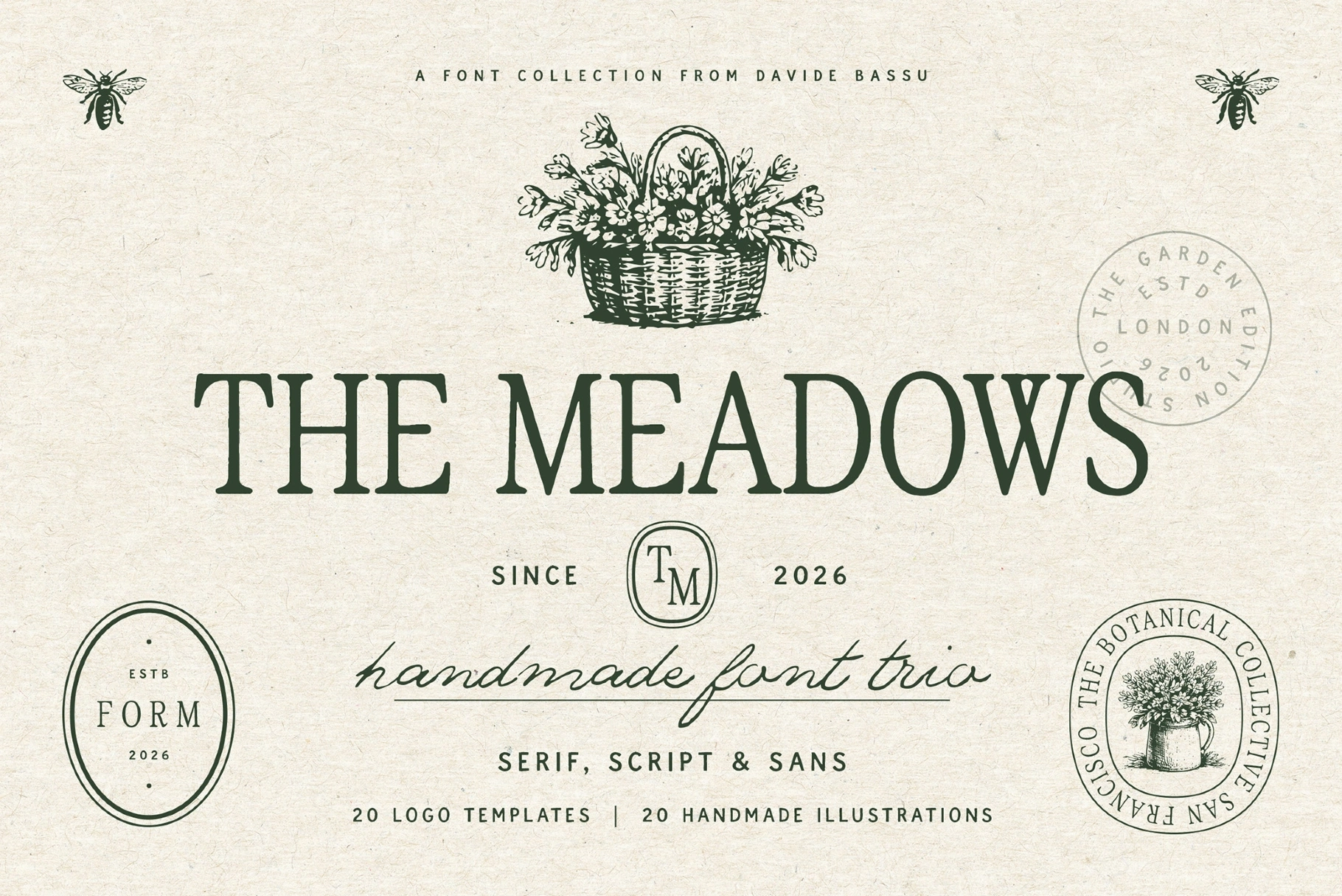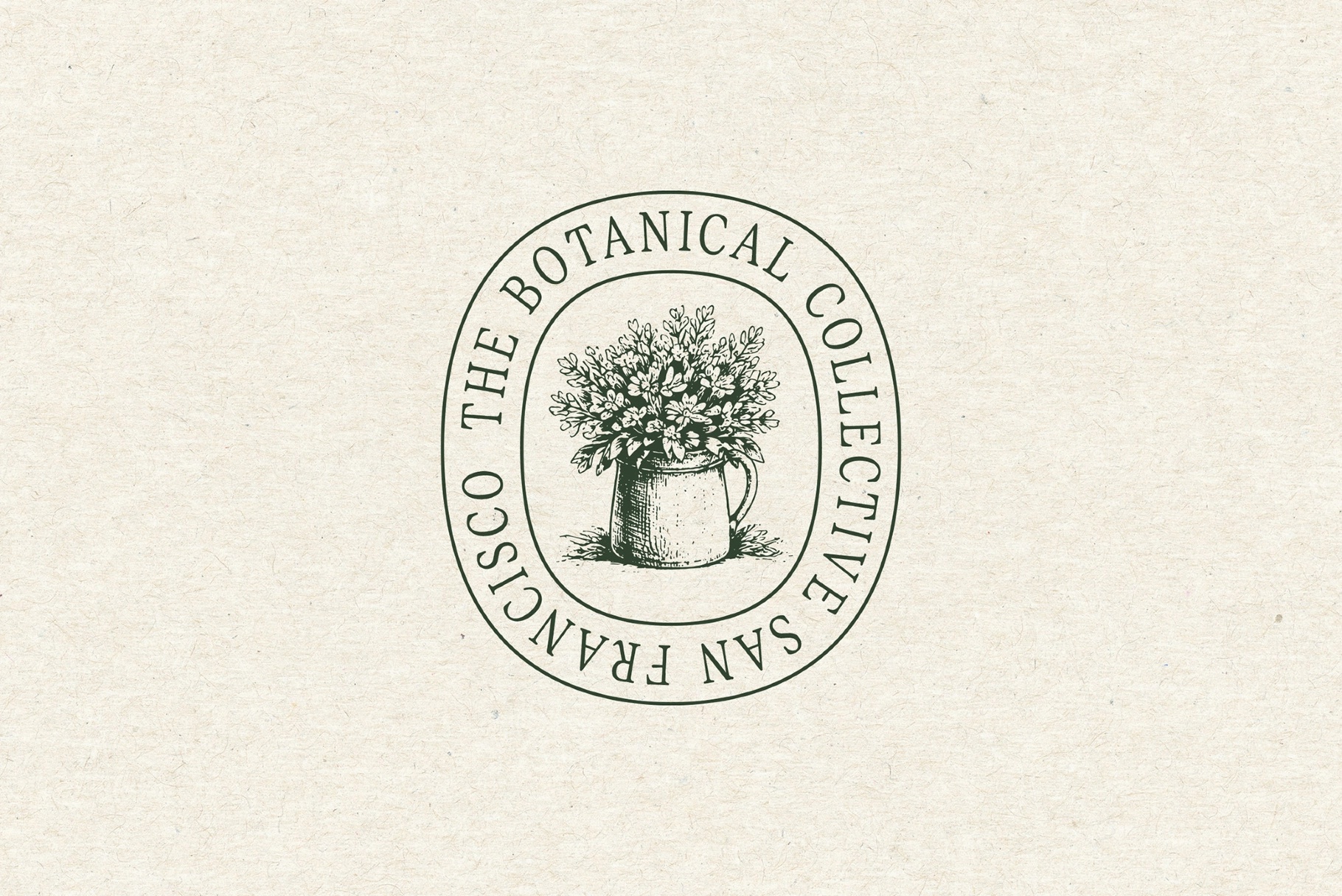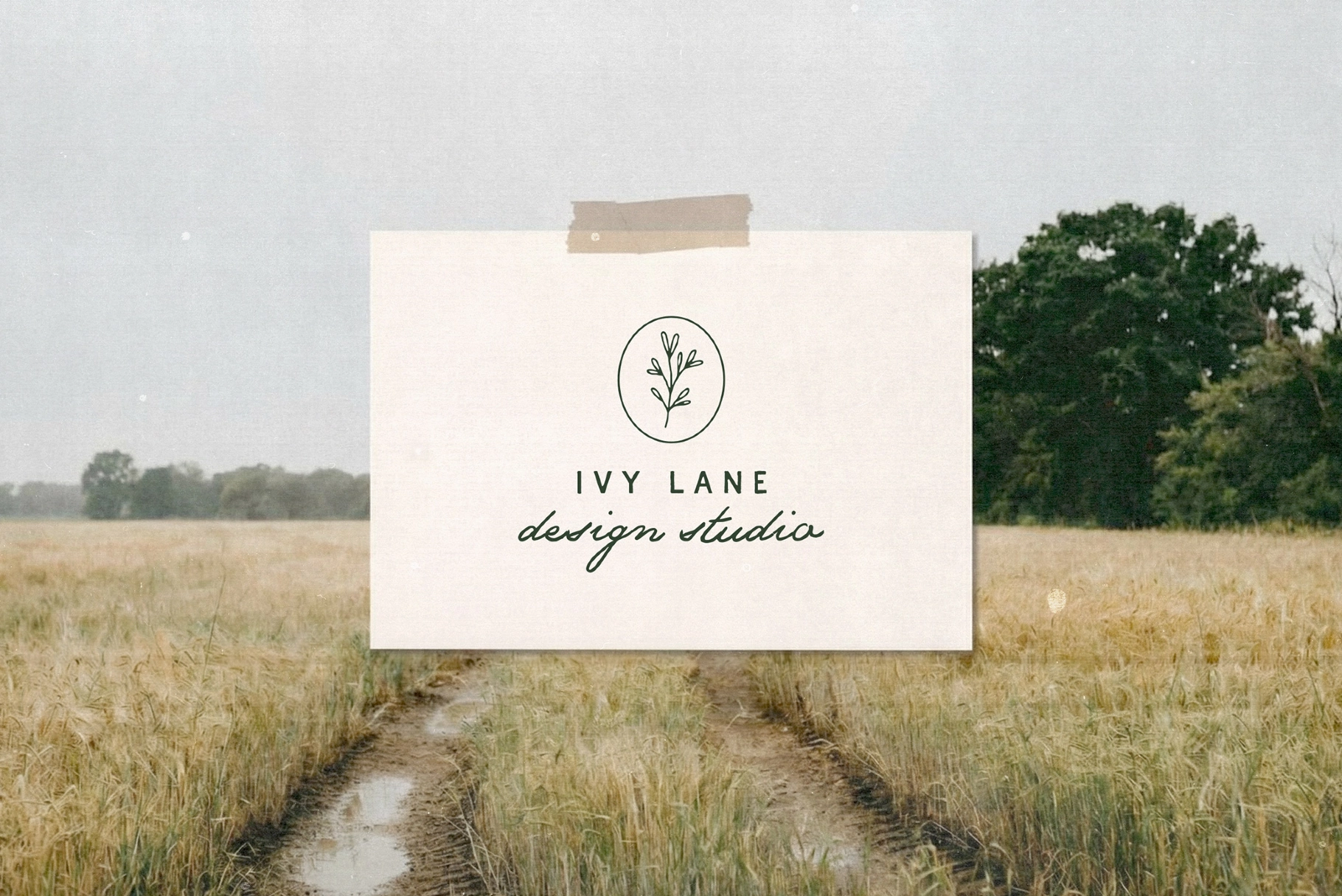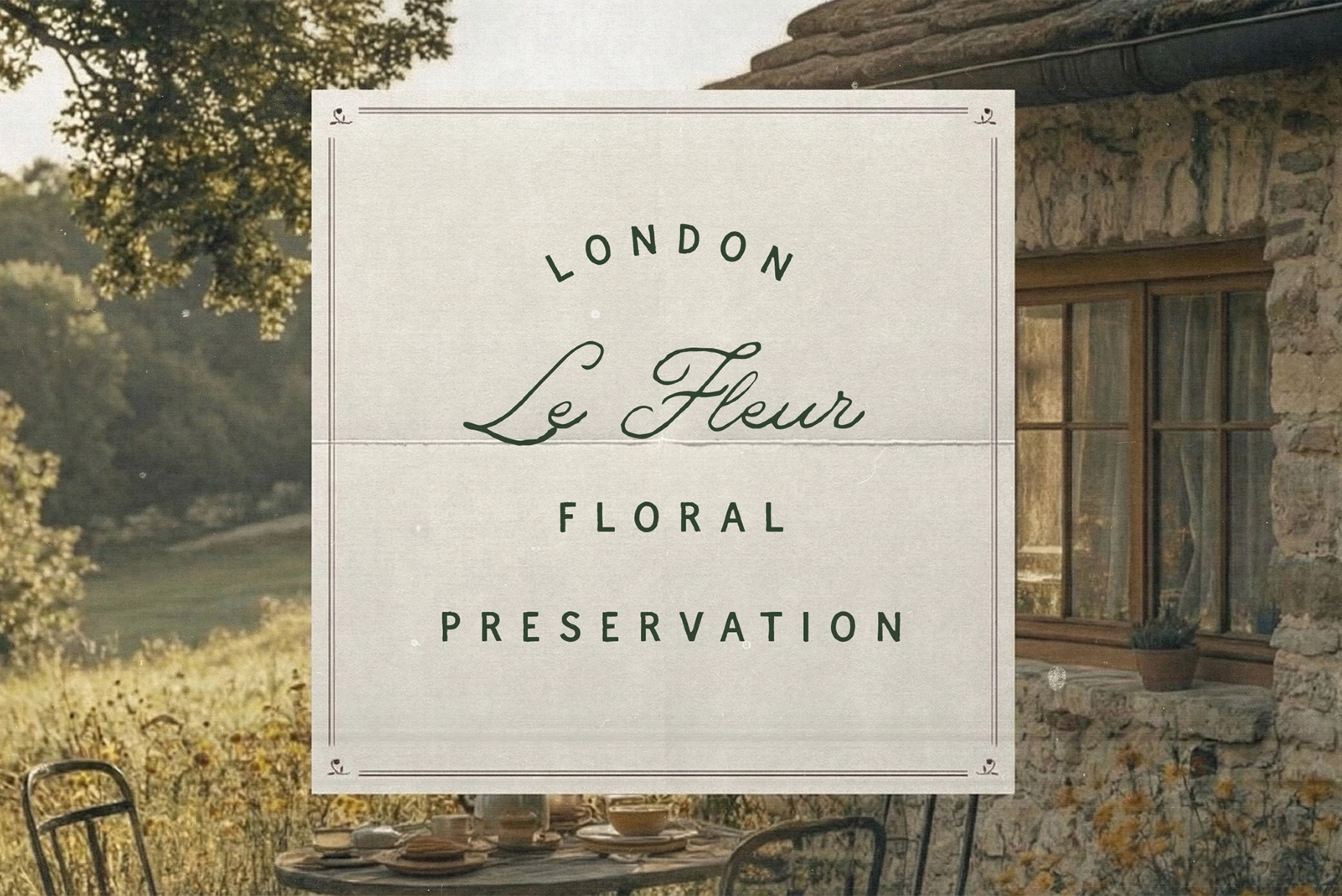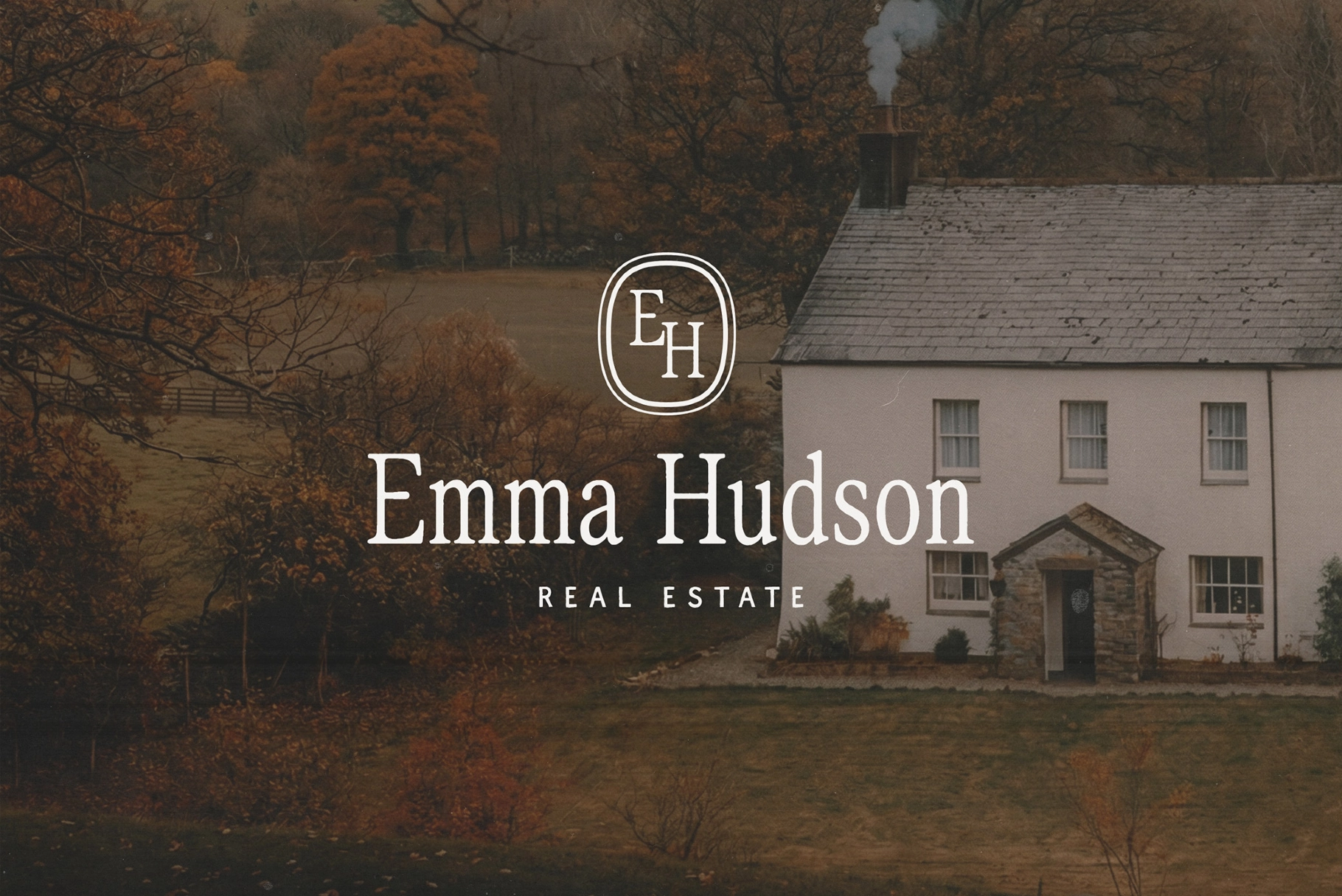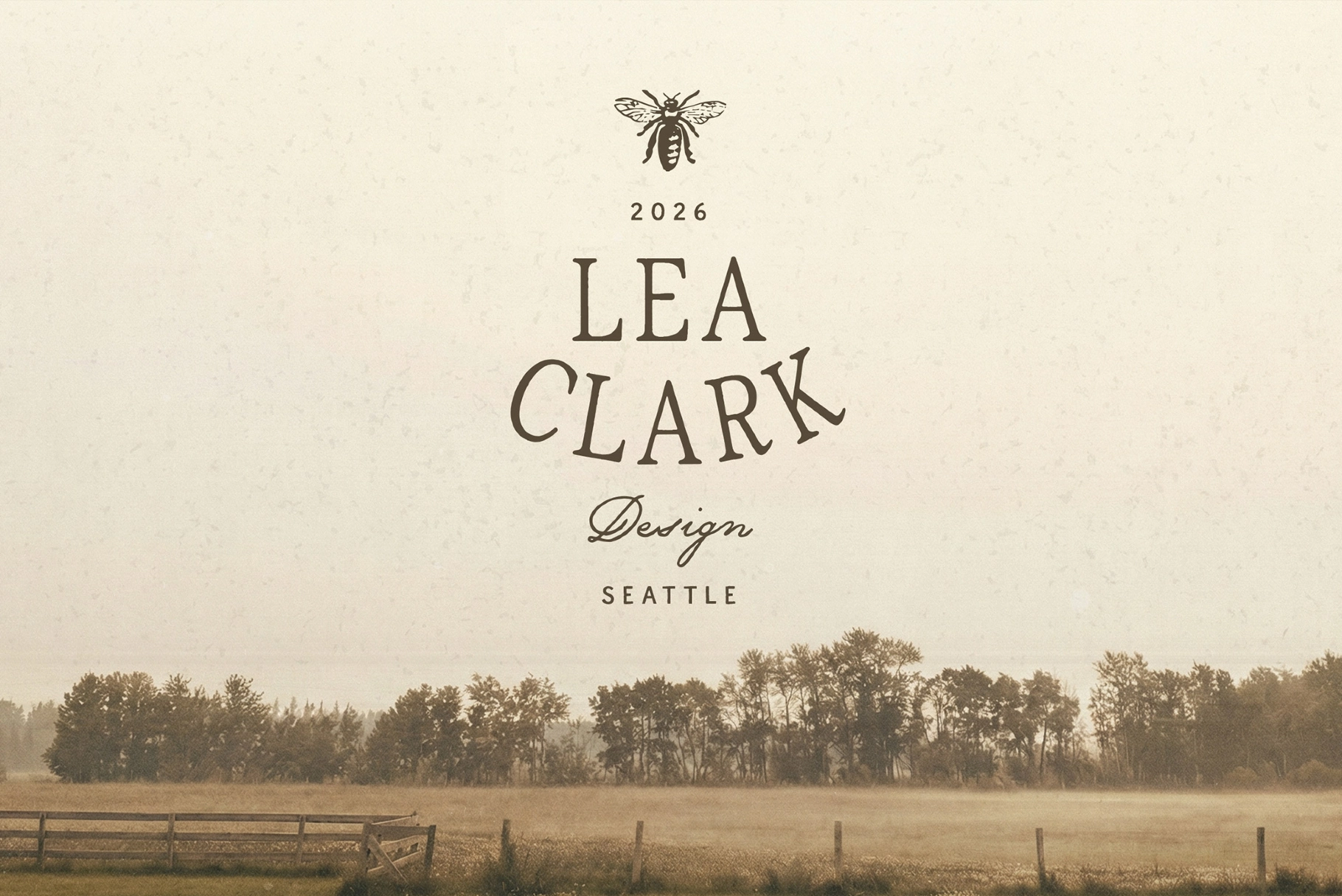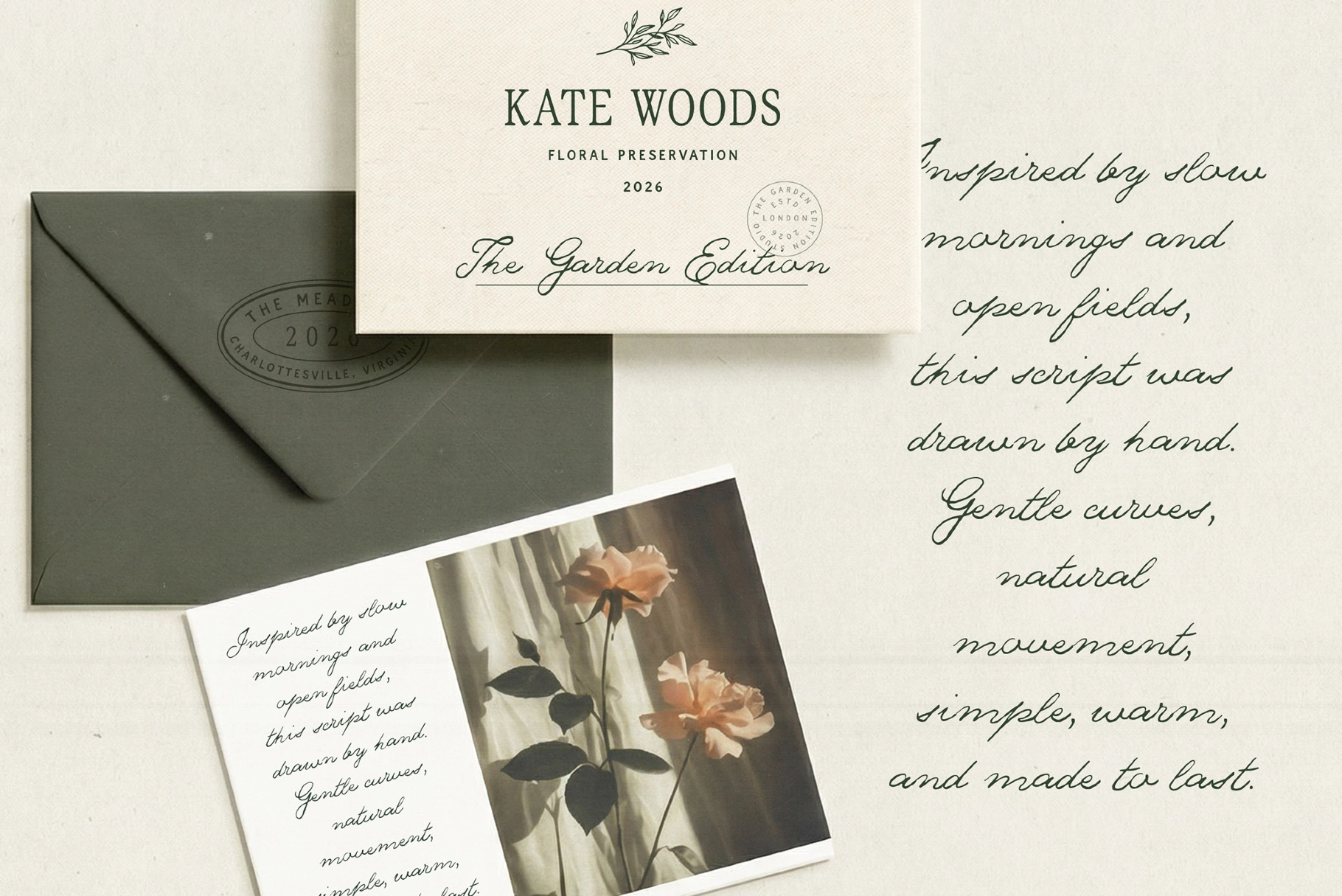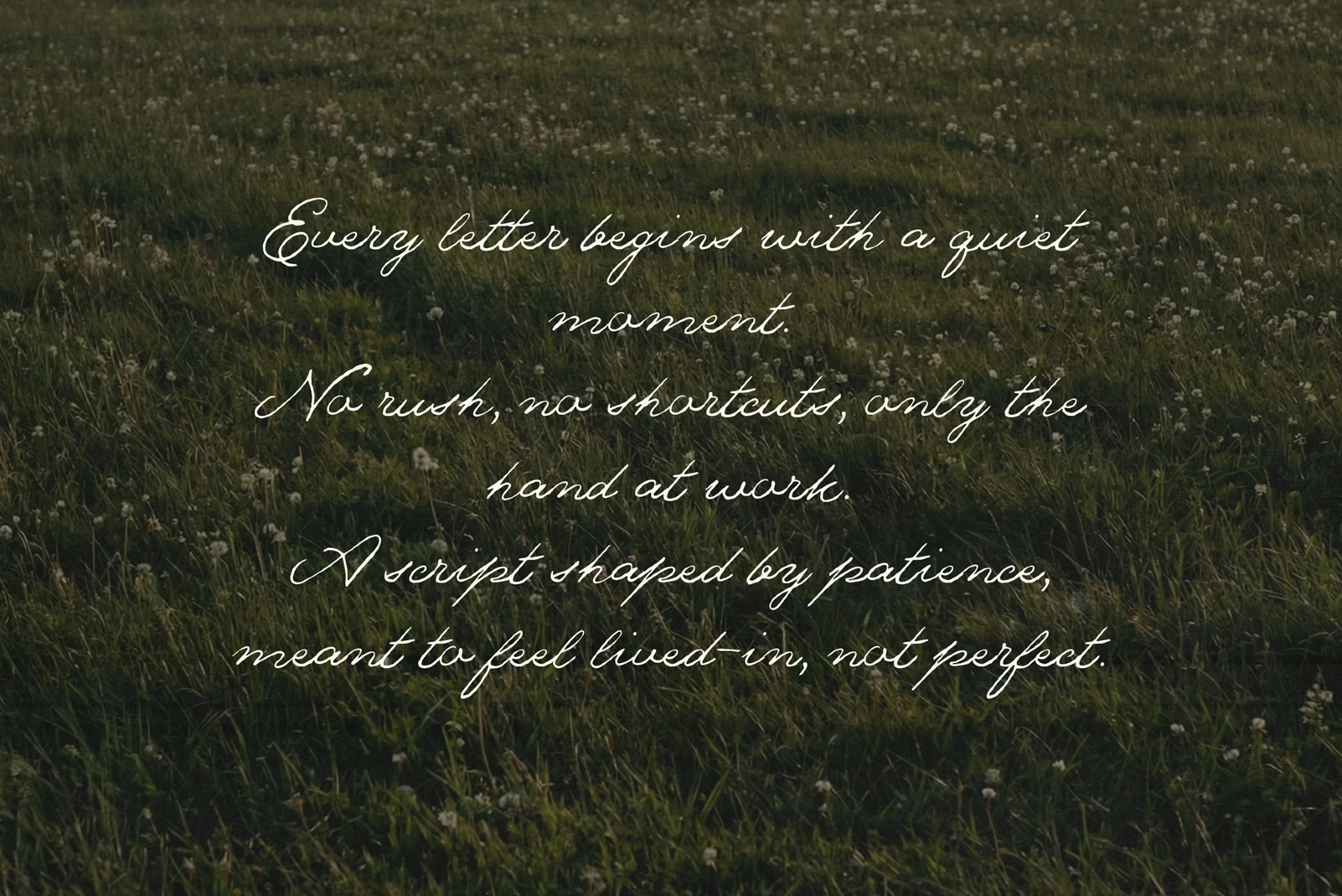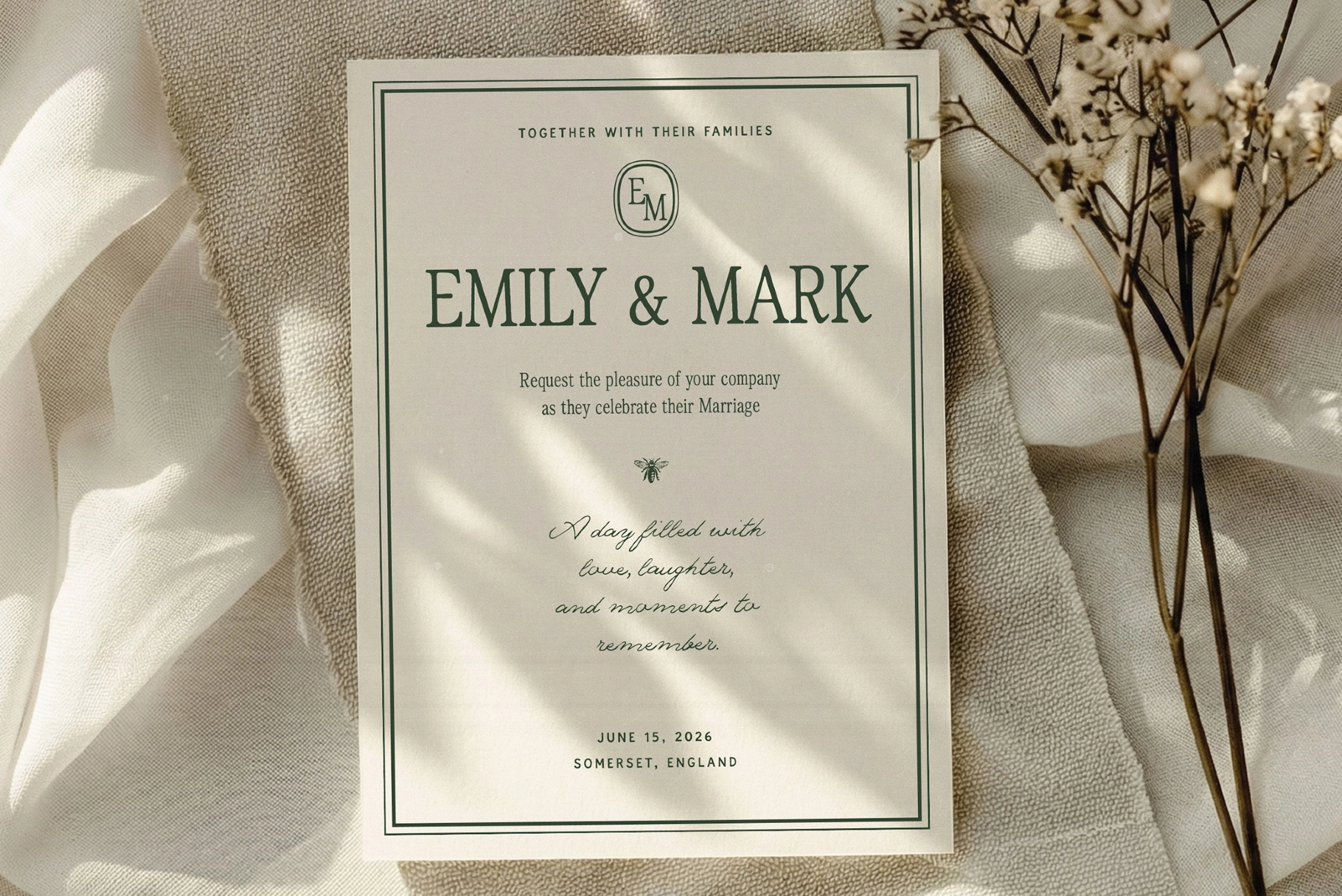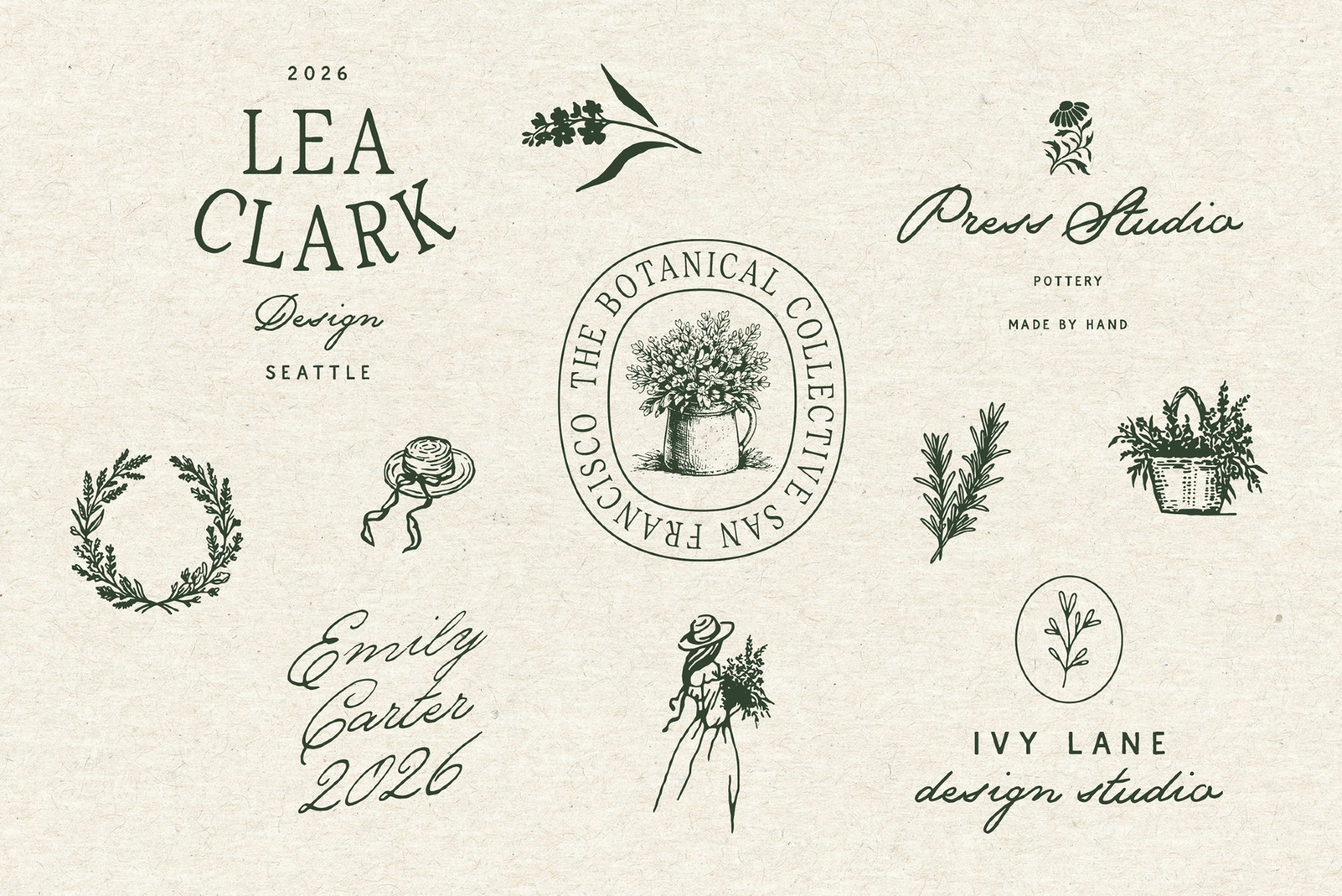
The Meadows — Font Trio & Extra
The Meadows family lovingly embraces a grounded serif, an emotional handwritten script, and a clear sans, creating a cohesive handmade finish. Its look draws on farmers’ market signage, produce crate stamps, and lightly worn letterpress. The serif gives structure and poise, the script adds a literal human touch, and the sans holds everything together.
- Wedding suites — script for names, serif for details, sans for RSVPs.
- Small-batch packaging — jam labels, honey jars, coffee roasters, apothecary tins.
- Farmers’ market booths — price boards, stall signage, canvas tags.
- Boutique hospitality — menus, door hangers, key tags, breakfast cards.
- Editorial and magazines — section openers, pull quotes, recipes, captions.
- Brand kits — primary logotype in script, secondary marks in serif, body copy in sans.
- Product labels — ingredients, batch numbers, storage notes.
- Social templates — story covers, quote cards, carousels with serif headlines.
- Stationery — letterhead, envelopes, rubber stamps, return addresses.
- Seasonal campaigns — gift wrap patterns from the illustrations, promo postcards.